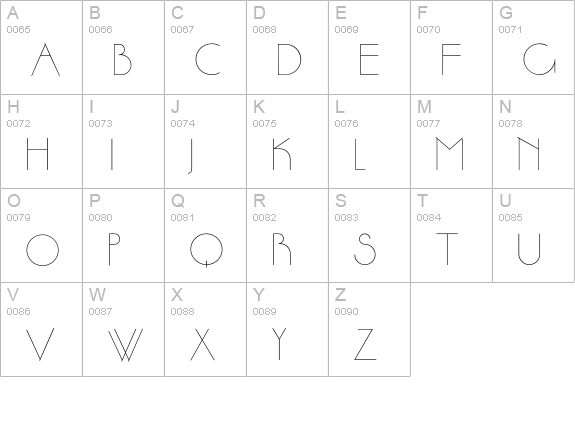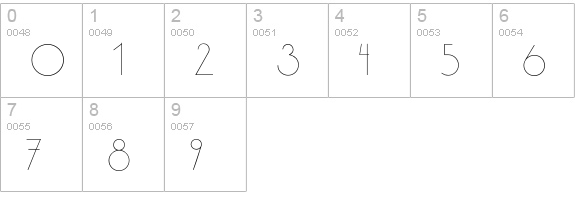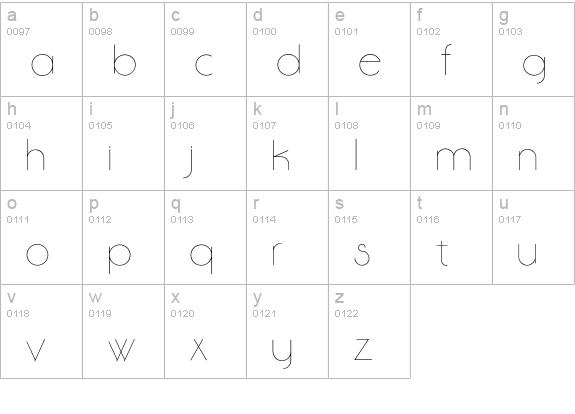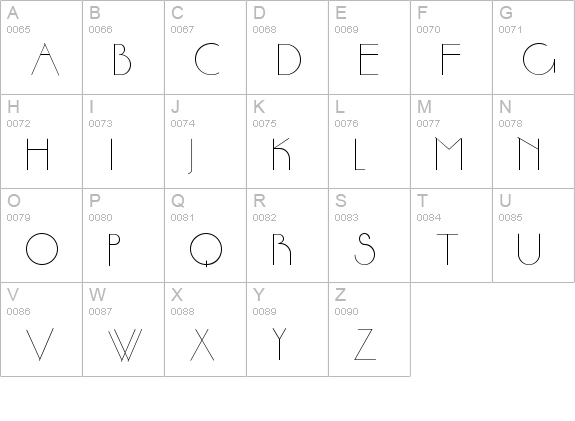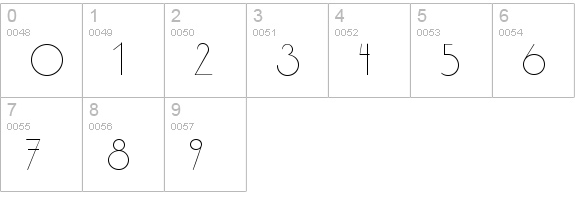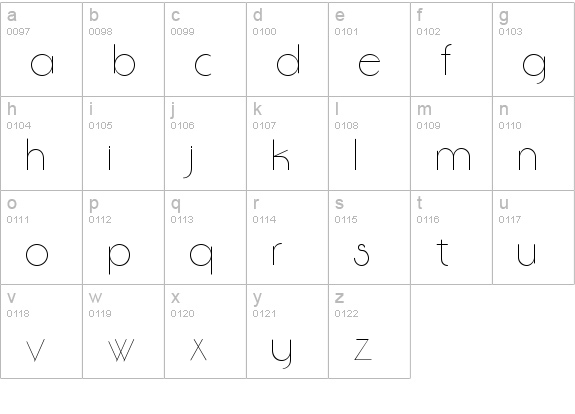
AaseLight Font Details
Introducing AaseLight font, a modern and elegant typeface that is sure to catch your eye. With its sleek lines and sophisticated design, AaseLight is perfect for adding a touch of class to any project. But what sets AaseLight font apart from the rest is that it is completely free! That's right, this stunning font is freely available to download at FontsMarket.com. Whether you're a professional designer or just someone looking to add a little flair to their personal projects, AaseLight font is the perfect choice. Featuring a clean and minimalist look, AaseLight font is versatile and can be used in a variety of settings. Its legibility and readability make it ideal for both print and digital designs, ensuring that your message will be conveyed effortlessly. With a wide range of weights and styles to choose from, AaseLight font offers endless possibilities. From bold headlines to delicate and elegant text, this font can adapt to any design concept, adding a touch of sophistication and style. So why wait? Download AaseLight font for free today at FontsMarket.com and let your creativity soar. Whether you're working on a branding project, website design, or even a personal invitation, AaseLight font is the perfect companion to elevate your work to new heights. Don't miss out on this amazing opportunity to enhance your designs with a high-quality, freely available font.